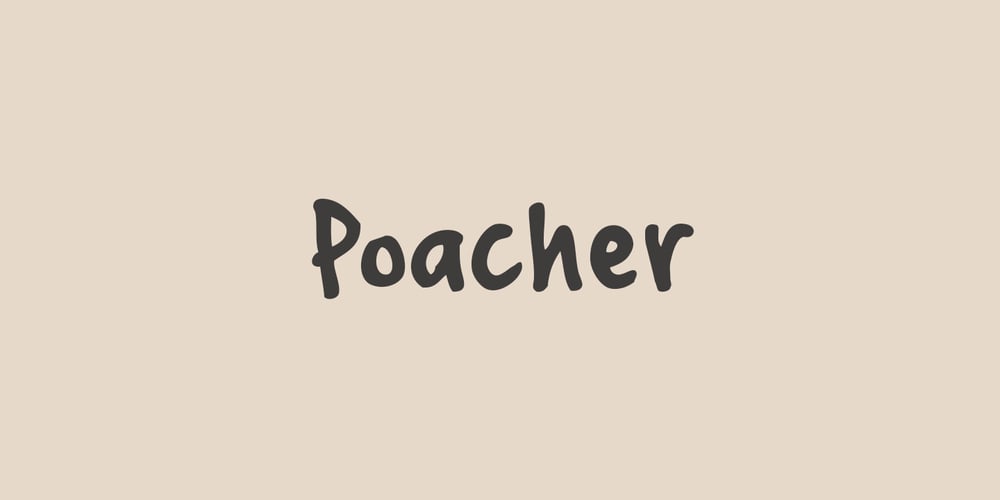
Poacher Font Family was designed by Sean Johnson and published by Sean Johnson. Poacher contains 1 styles and family package options. Poacher is a hand-drawn font inspired by the popular Hand Of Sean font, by the same designer. It has a looser, fun feel and is great for applications aimed at children. Great for kid’s books, classroom hand-outs, annotating sketches and notebooks. Great for use on natural, organic food / product packaging.